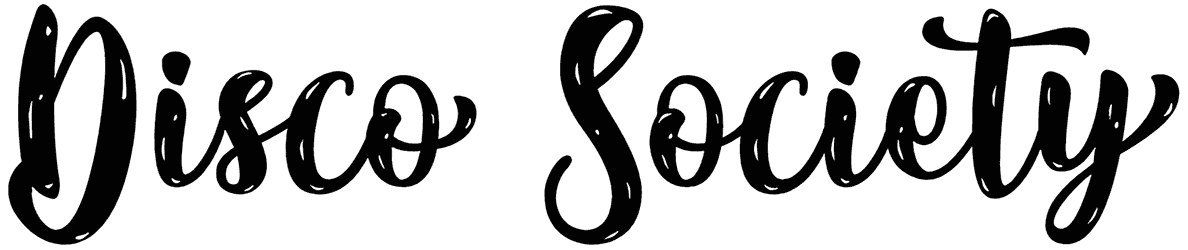
Disco Society Font
If you crave a handwritten font to share a playful and joyous vibe, Disco Society can spark your interest! It features sketched and medium characters and can be utilized for many content needs such as applications, bag shops, programs, etc. If you found this beach script font helpful, make sure to recommend us to your friends!